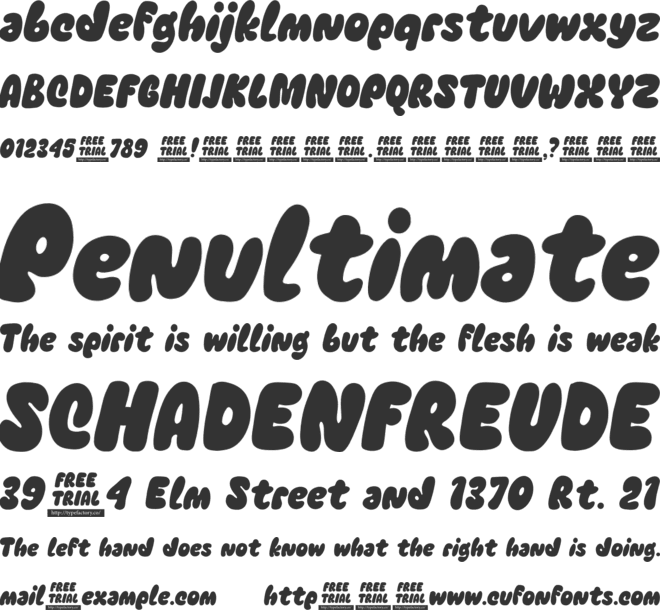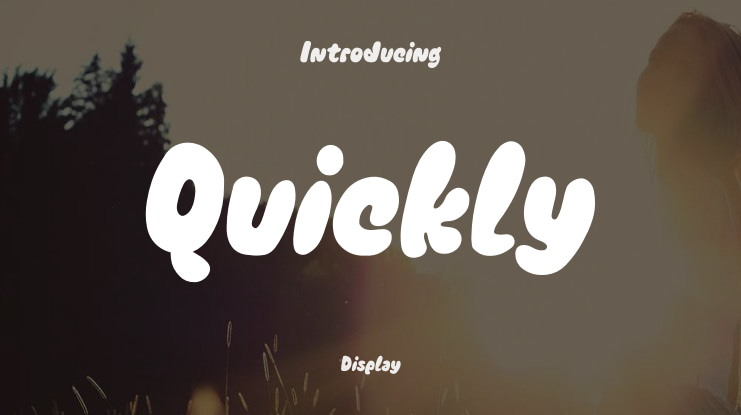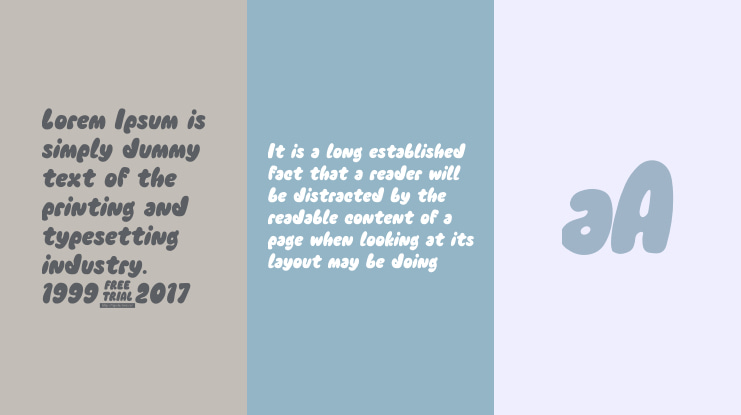
Quickly Font
Meet Quickly, the quirky, chunky, and irresistibly friendly display typeface designed to bring an instant smile and a burst of playful energy to any project!
Inspired by bouncy, fluid shapes and a lighthearted vibe, Quickly is your go-to font for designs that need to be fun, approachable, and impossible to ignore. Its bold, rounded forms are perfect for capturing the essence of childhood and making a strong, friendly statement.